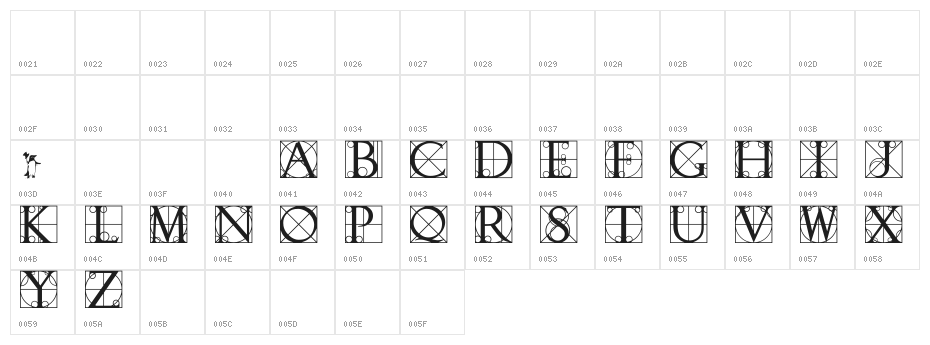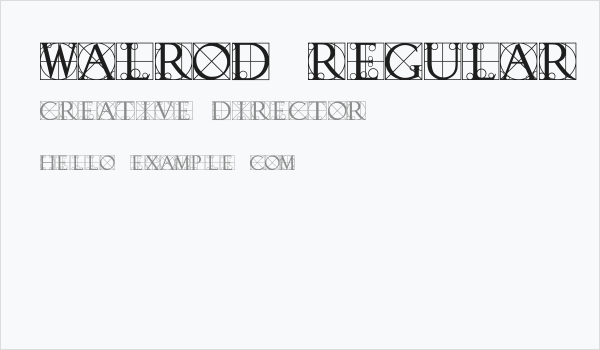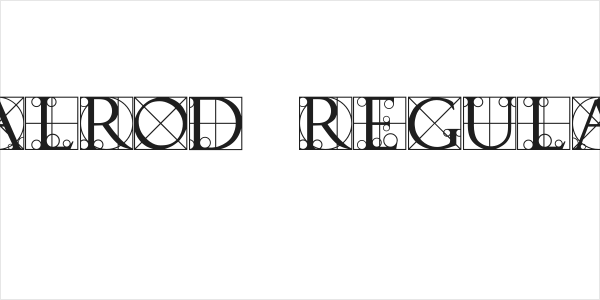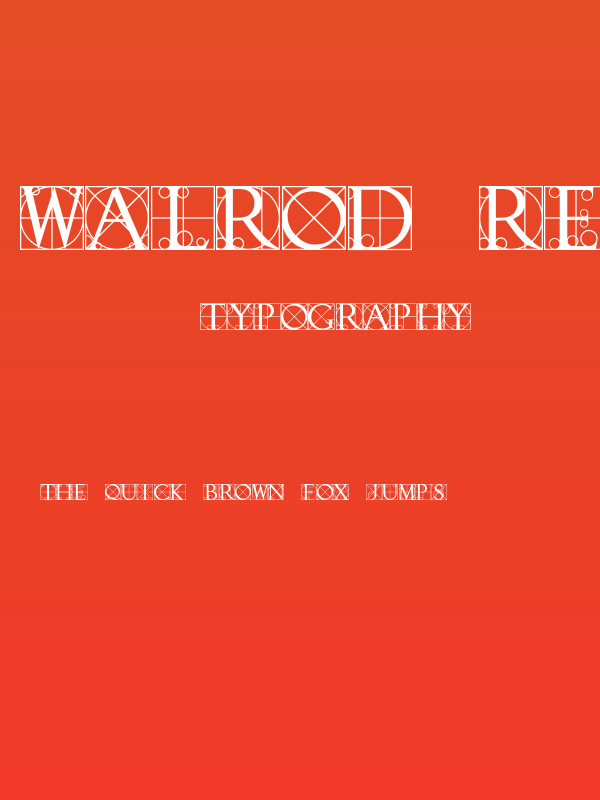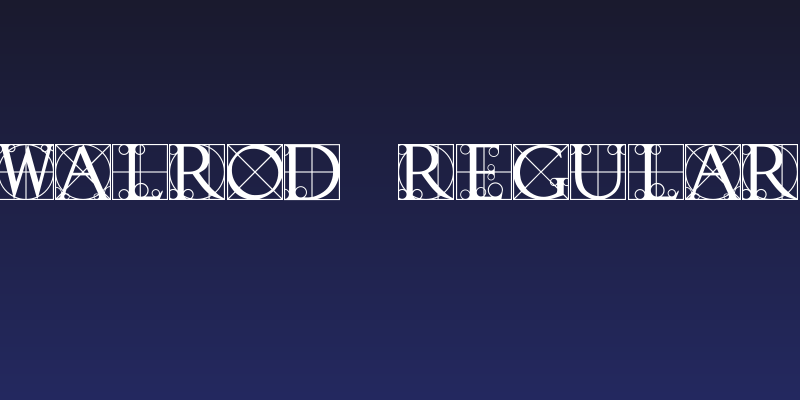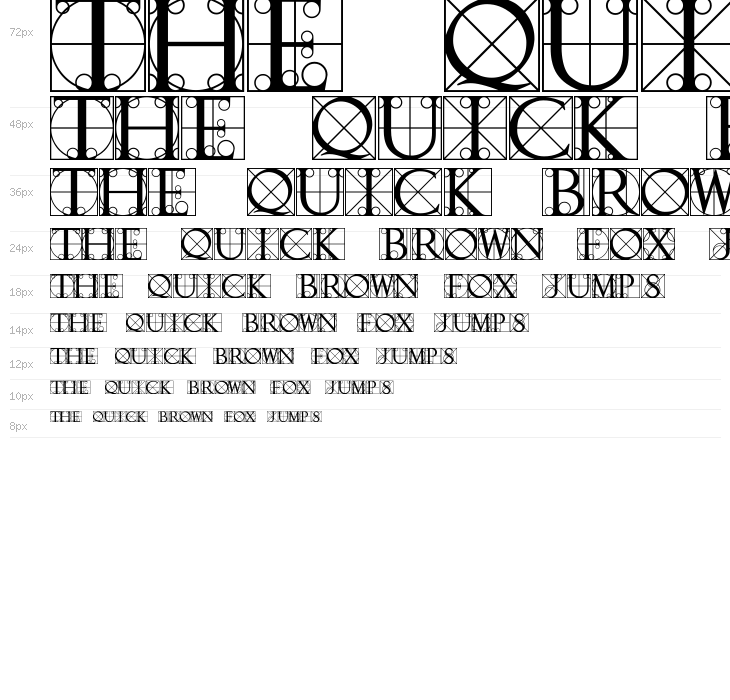
Walrod Regular Font
Walrod Regular Description
This font features a highly decorative and intricate design, characterized by its elaborate geometric patterns and ornamental details within each letter. The characters are enclosed in square frames, adding a structured and artistic flair. The use of circles, lines, and curves within the letters creates a unique visual complexity, making it stand out as a statement piece. The font's aesthetic is reminiscent of architectural blueprints or technical drawings, offering a blend of precision and creativity. Its bold and artistic nature makes it suitable for projects that require a strong visual impact.
Proposed ProjectsIdeal for artistic posters, branding for creative industries, album covers, and decorative headings.